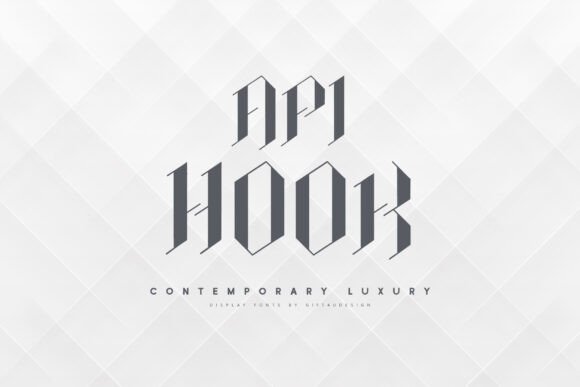
Unlocking the Power of Api Hook Font: Elevate Your Designs with Confidence and Style
In the world of typography, fonts play a crucial role in conveying messages, evoking emotions, and creating visual identities. Among the numerous font styles available, Api Hook Font stands out for its unique characteristics and versatility. This comprehensive guide will delve into the features, benefits, and applications of Api Hook Font, empowering designers and crafters to harness its potential and take their creative projects to the next level.
What is Api Hook Font?
Api Hook Font is a distinctive typeface designed to make a statement. Its defining feature is the incorporation of angles, which gives it a smart, agile, confident, and stable appearance. This font is particularly suitable for headings, emphasized letters, and main characters, making it an excellent choice for designers seeking to add a touch of sophistication and personality to their work.
Key Features of Api Hook Font
- Unique Angles: The font’s angular design elements create a sense of dynamism and energy, setting it apart from more traditional font styles.
- Versatility: Api Hook Font can be used in a wide range of applications, from digital media to print materials, and is suitable for various design projects, including branding, advertising, and packaging.
- Emphasis and Hierarchy: The font’s distinctive features make it ideal for creating visual hierarchies, drawing attention to key information, and emphasizing important details.
- Customization: Api Hook Font can be easily customized to fit specific design requirements, allowing designers to experiment with different colors, sizes, and styles.
Benefits of Using Api Hook Font
Api Hook Font offers numerous benefits for designers and crafters, including:
- Enhanced Visual Appeal: The font’s unique design elements add a touch of sophistication and style to any design project.
- Improved Readability: Api Hook Font’s clear and legible design ensures that messages are conveyed effectively, even at smaller font sizes.
- Brand Differentiation: By incorporating Api Hook Font into their designs, brands can create a distinctive visual identity that sets them apart from competitors.
- Creative Flexibility: The font’s versatility allows designers to experiment with various design elements, ensuring that their creative vision is realized.
Applications of Api Hook Font
Api Hook Font can be used in a variety of design projects, including:
- Branding and Logo Design: The font’s unique features make it an excellent choice for creating memorable logos and brand identities.
- Advertising and Marketing Materials: Api Hook Font can be used to create eye-catching headlines, promotional materials, and social media graphics.
- Packaging Design: The font’s distinctive style makes it suitable for product packaging, labels, and point-of-sale displays.
- Digital Media: Api Hook Font can be used in digital media, such as website headers, mobile app designs, and video game UI.
Tips for Using Api Hook Font Effectively
To get the most out of Api Hook Font, consider the following tips:
- Use it Sparingly: Api Hook Font is best used in moderation, as its distinctive features can be overwhelming if overused.
- Experiment with Colors: Try pairing Api Hook Font with different colors to create a unique visual identity.
- Mix and Match: Combine Api Hook Font with other font styles to create a visually appealing contrast.
- Pay Attention to Legibility: Ensure that the font size and style are legible, even at smaller sizes.
In conclusion, Api Hook Font is a versatile and distinctive typeface that can elevate any design project. Its unique features, versatility, and customization options make it an excellent choice for designers and crafters seeking to add a touch of sophistication and personality to their work. By understanding the benefits and applications of Api Hook Font, designers can unlock its full potential and create stunning visual identities that leave a lasting impression.